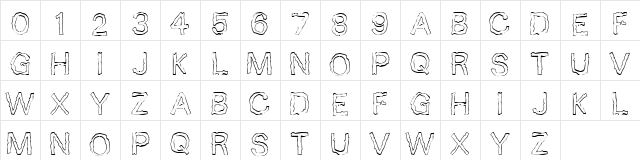
10 Minutes Regular Font Preview
10 Minutes Regular
10 Minutes Regular Font Details
Design Context for 10 Minutes Typeface
10 Minutes is a composed and adaptable typeface that performs quietly and consistently across a wide range of design contexts.